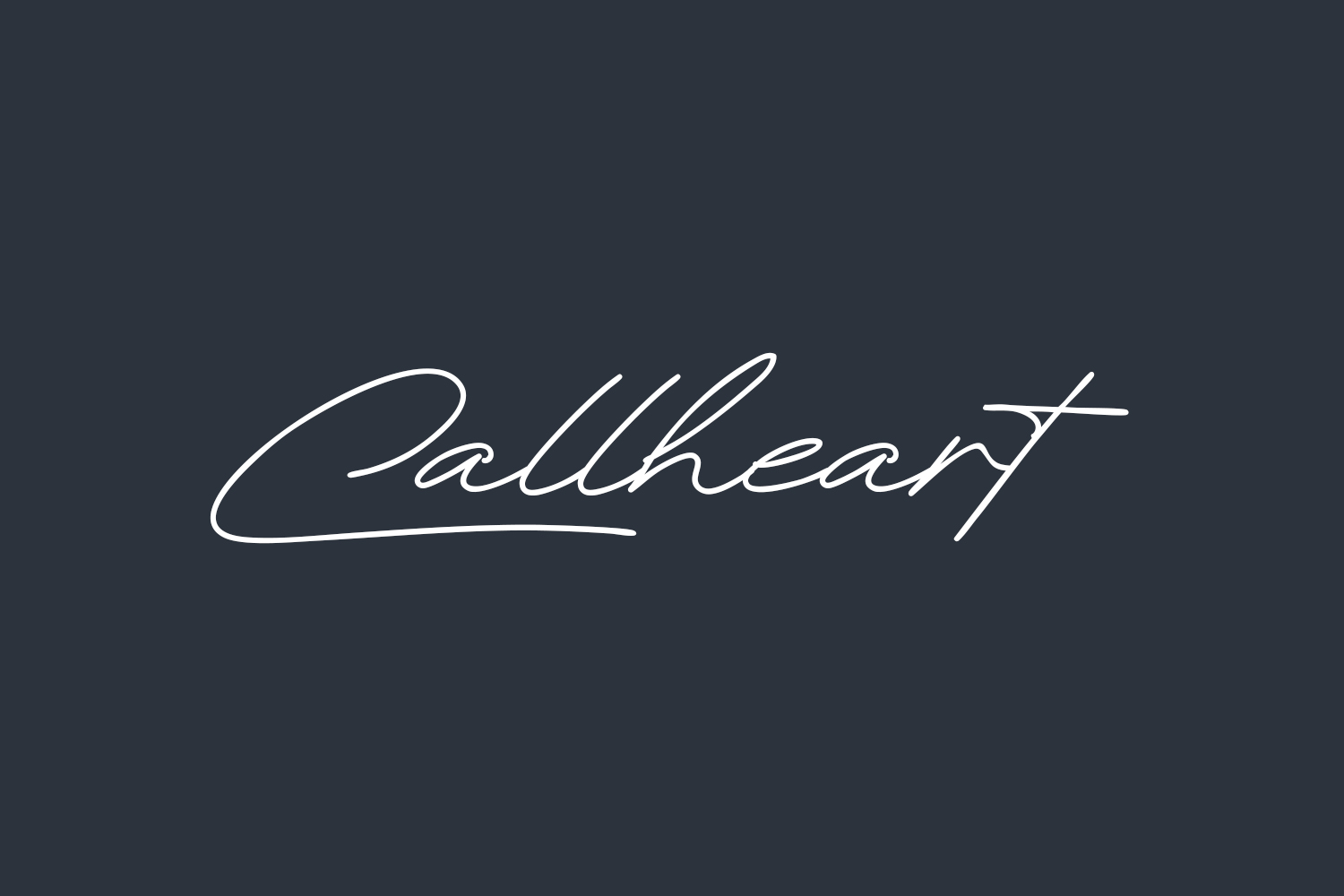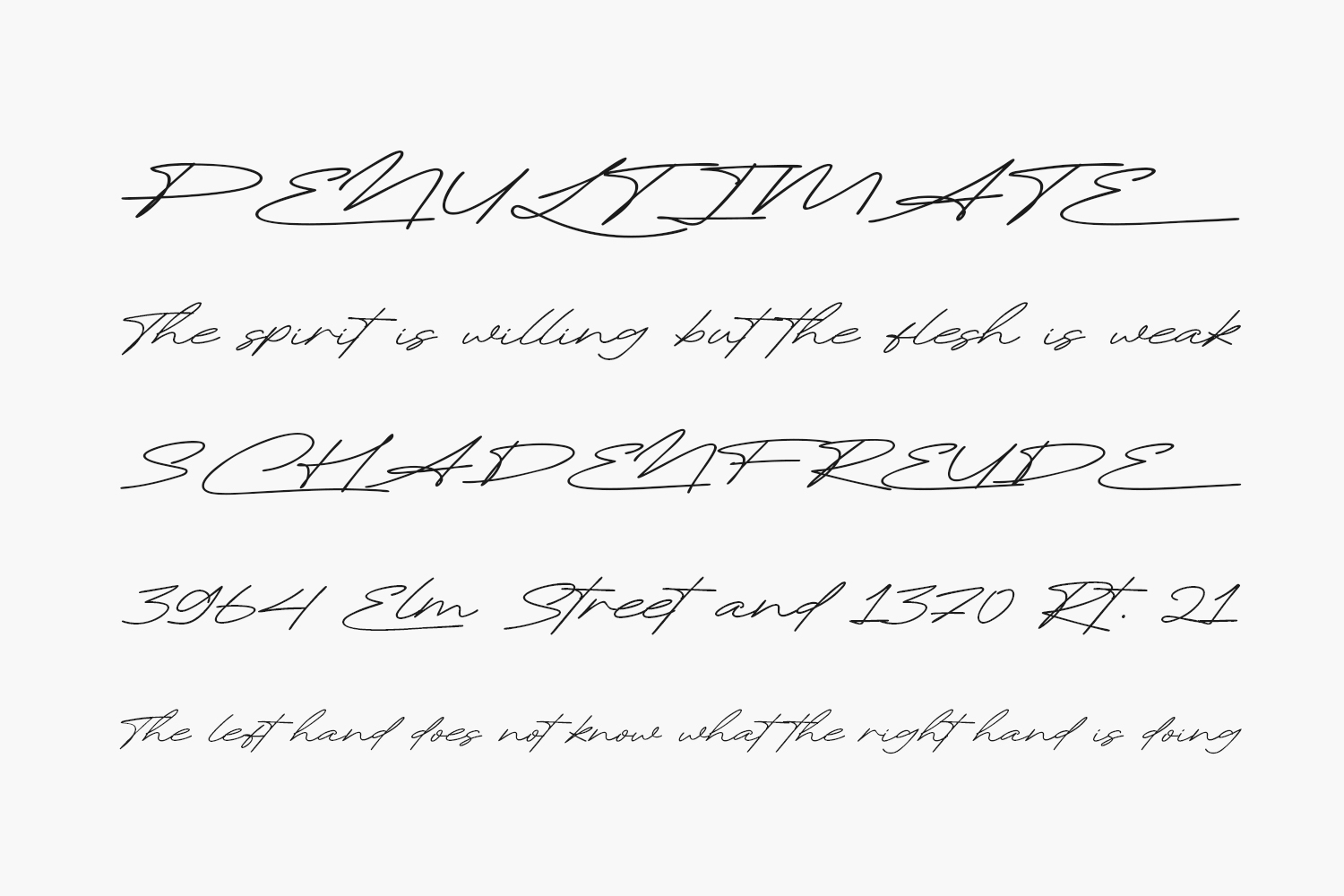
Introducing Callheart Free Font, a sleek, contemporary, and refined script font that’s an ideal choice for posters, logos, magazines, book covers, banners, and beyond! Acquire this incredible font and infuse your designs with a touch of elegance. Versatile enough to complement a vast range of projects, incorporate Callheart into your creative ideas, and experience how it effortlessly makes them stand out. Callheart Free Font was designed by Khurasan and is free for personal or commercial use.